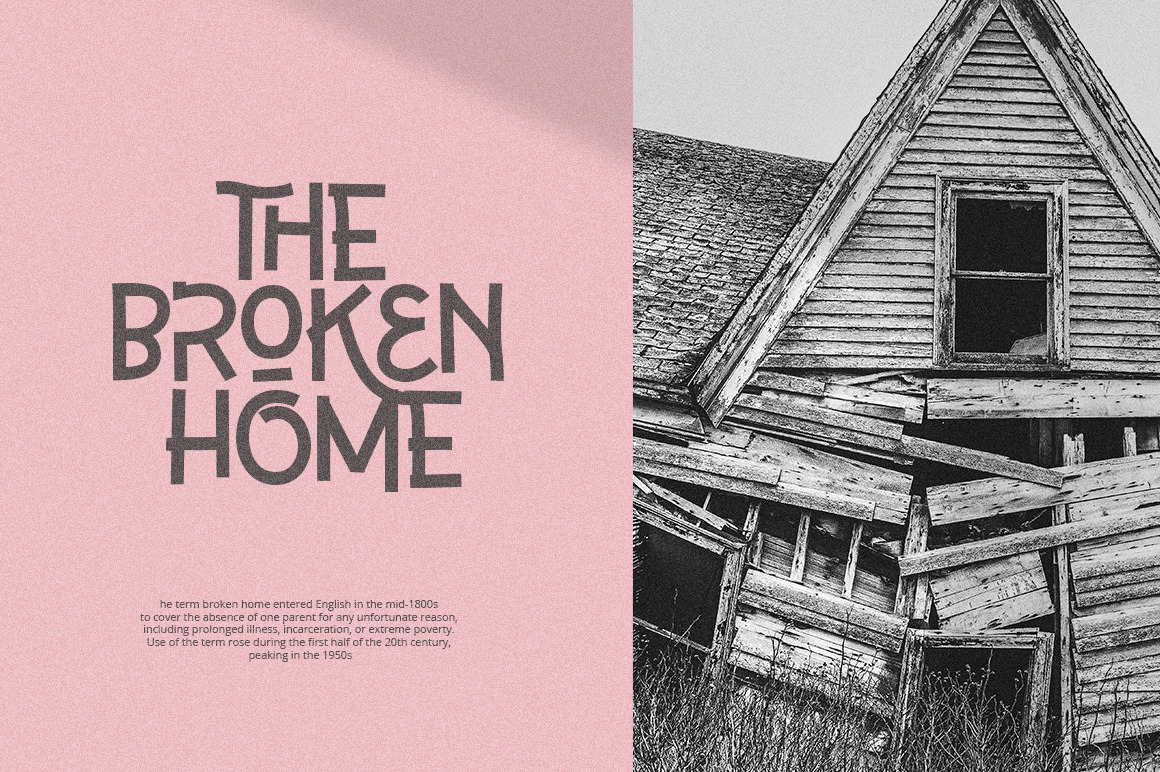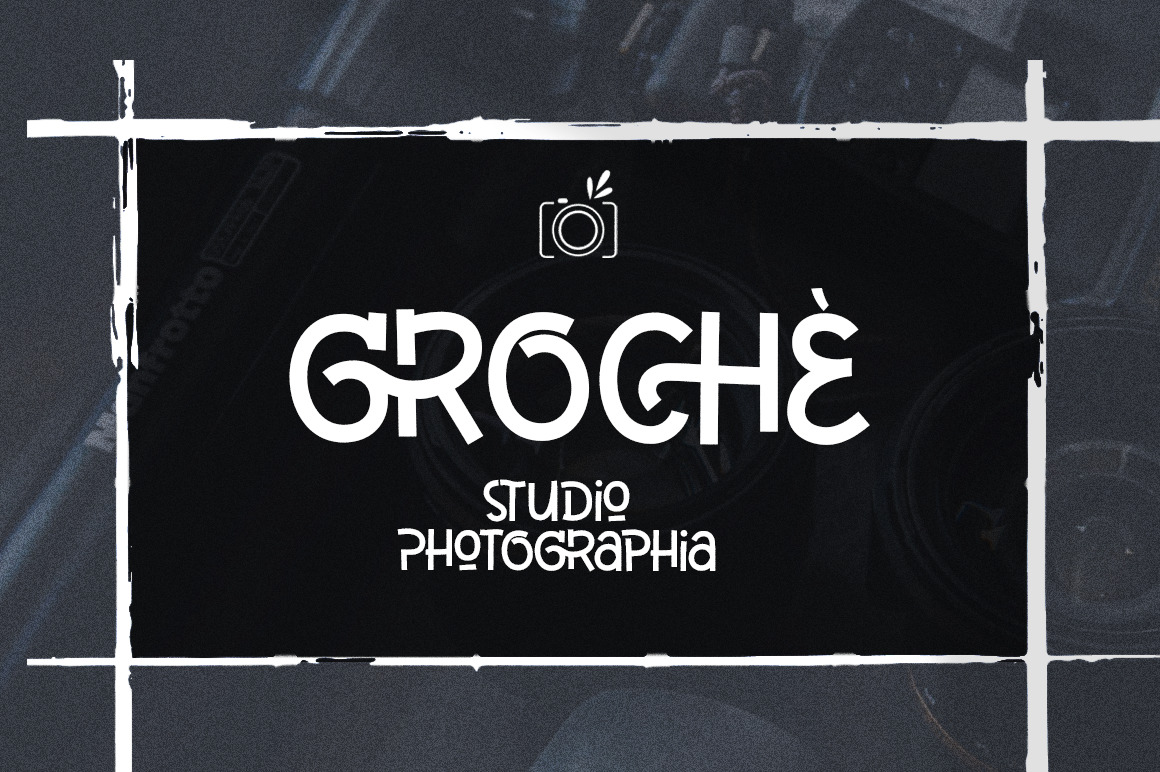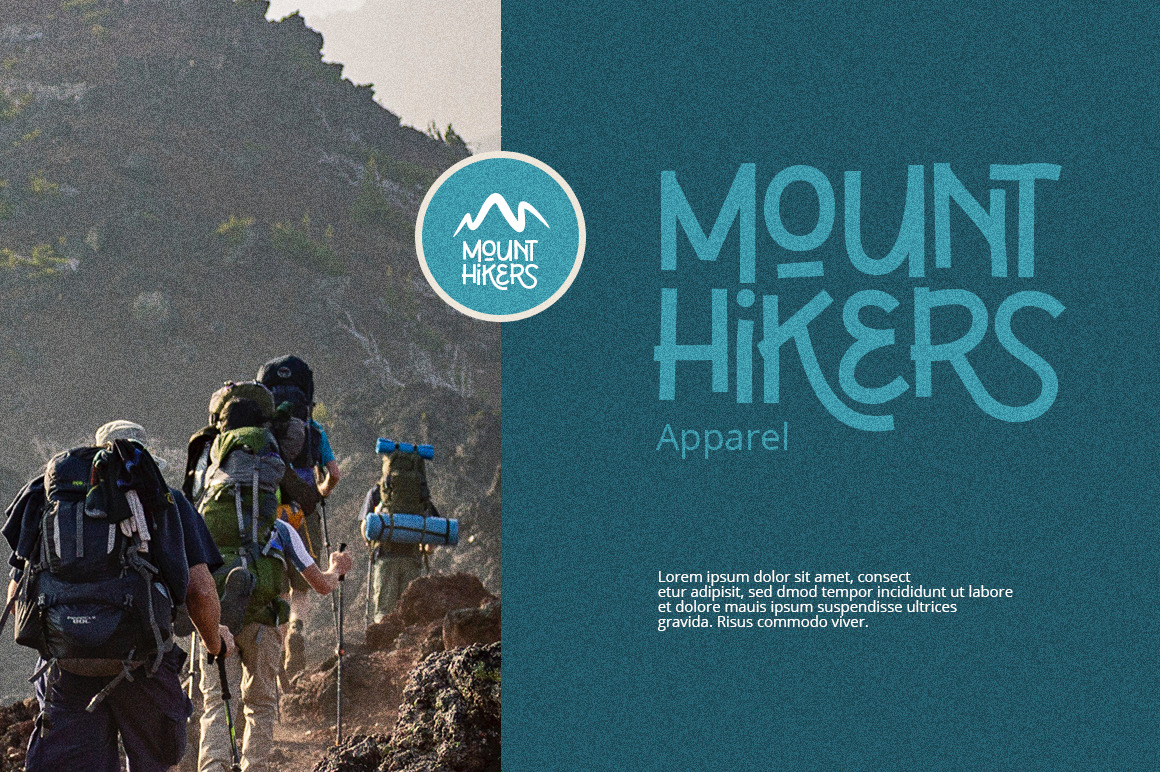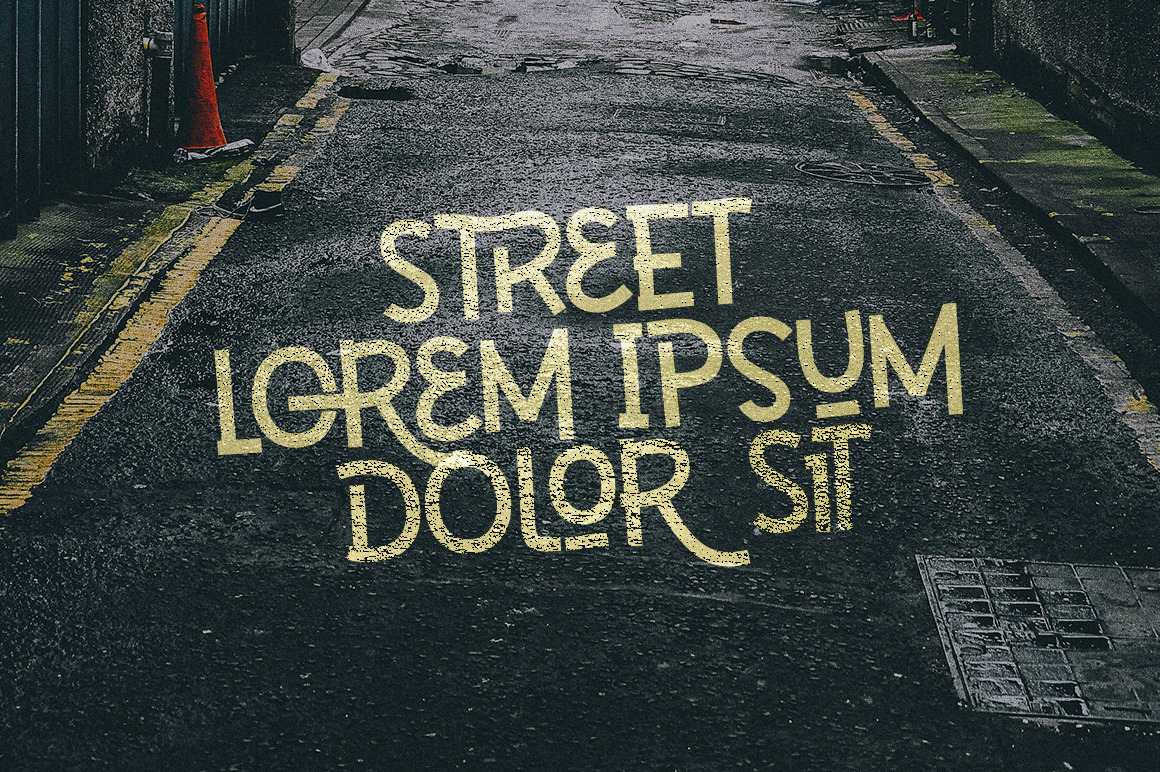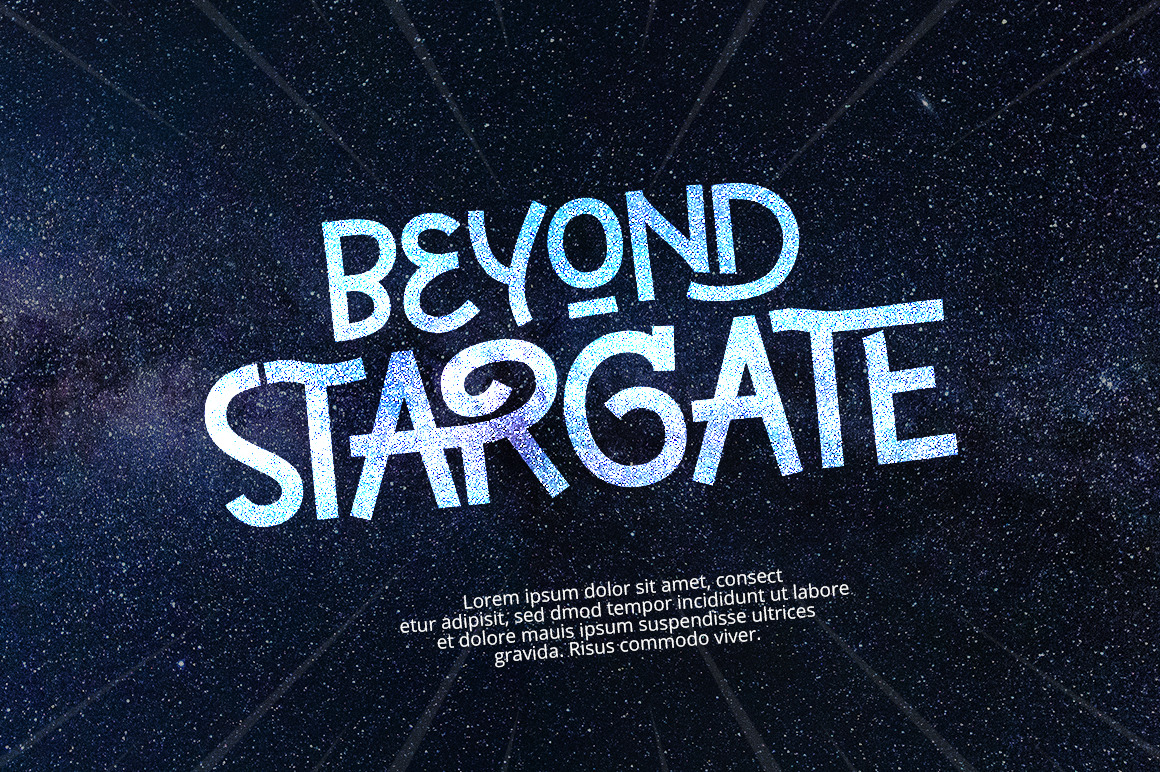
Grinko Font
Grinko is an elegant and casual retro decorative font. Each uppercase and lowercase letter has its own characteristics, plus some alternates and ligatures. This font is bold and tight kerning, very suitable for your design projects such logo tagline, logotype, name card, flyers invitation, magazine header etc.
- Uppercase glyphs
- Lowercase glyphs
- Numeral and Punctuations
- Standard Ligatures
- Stylistic Alternates